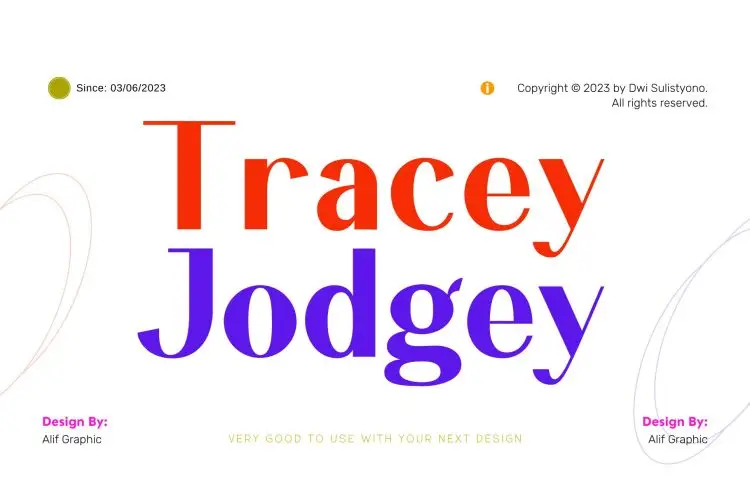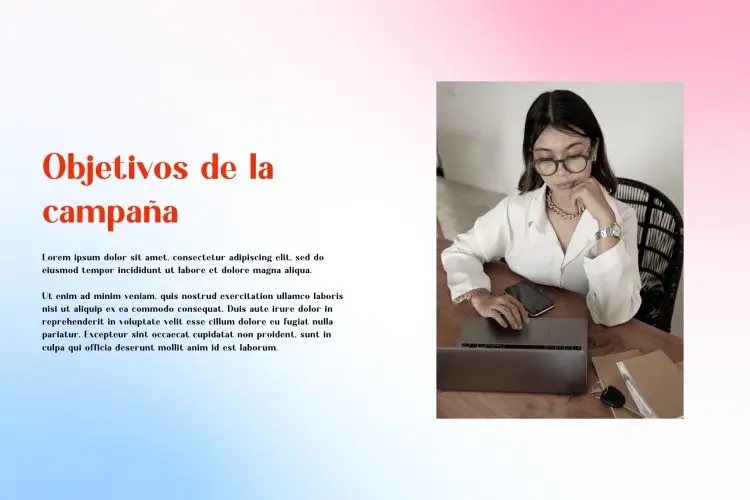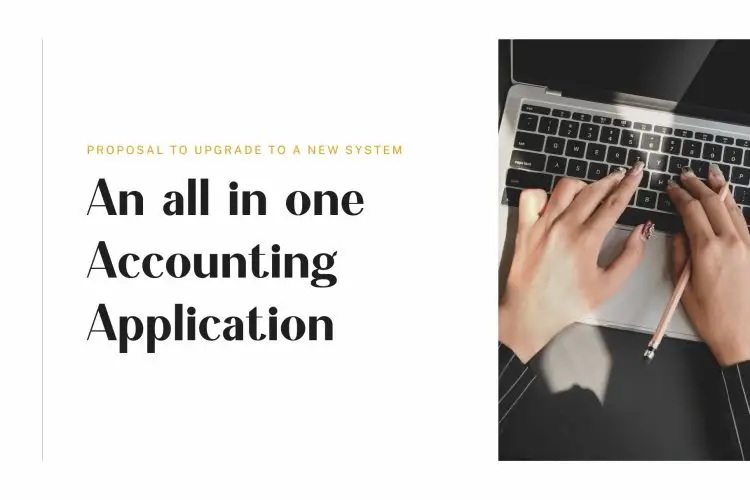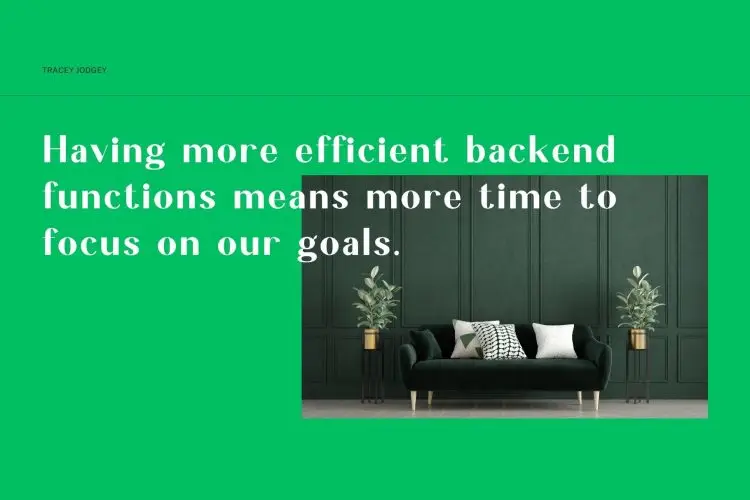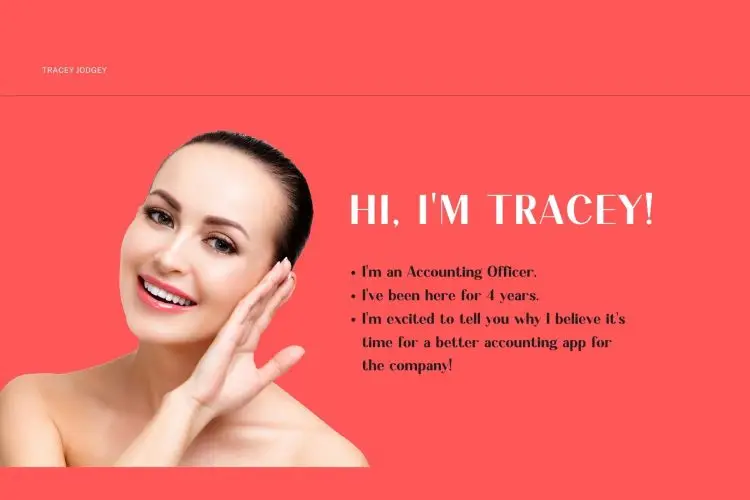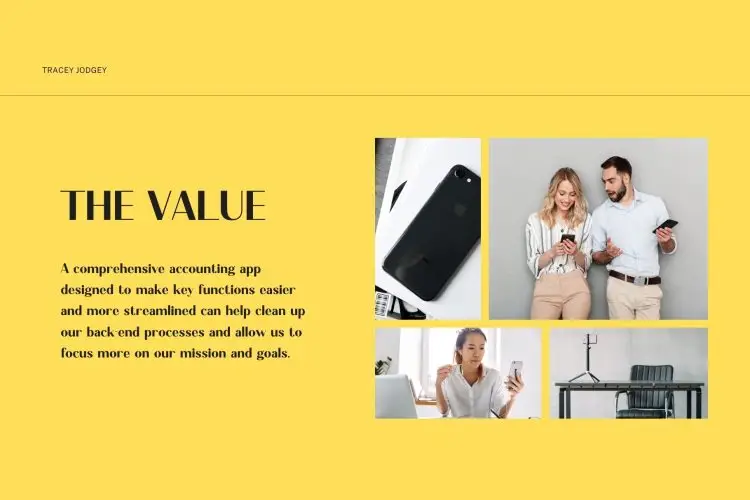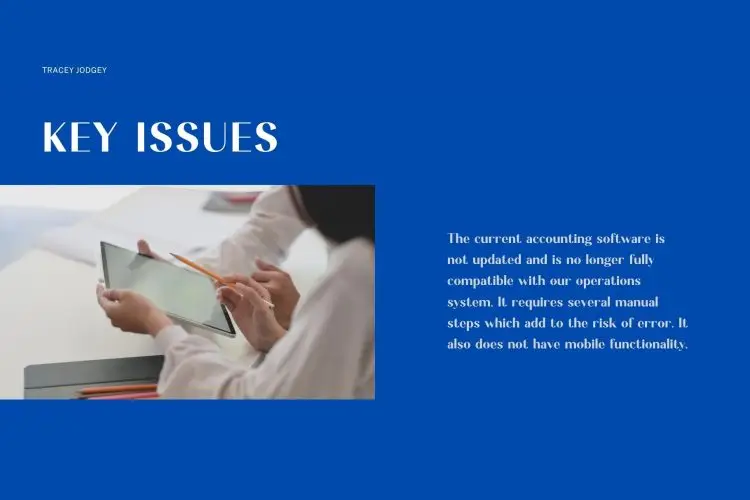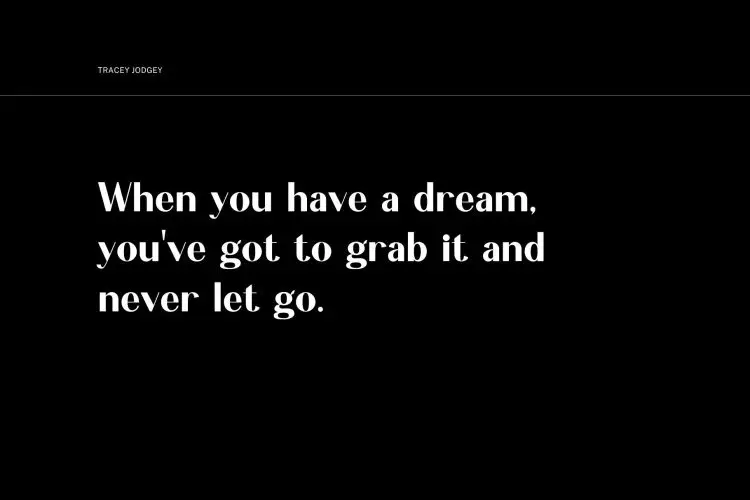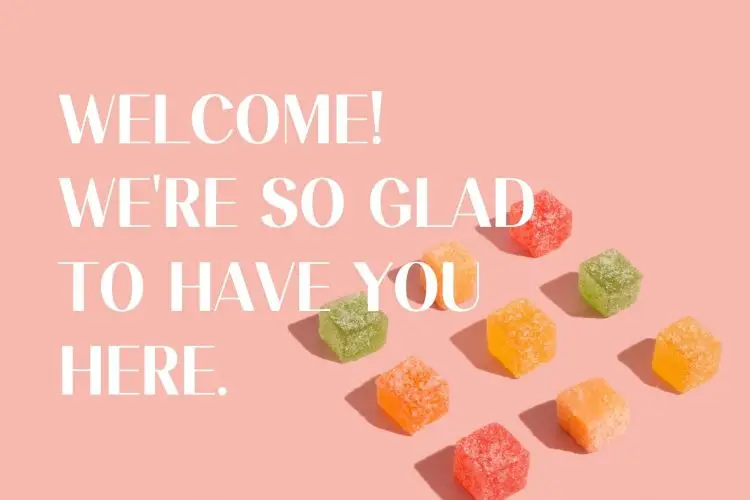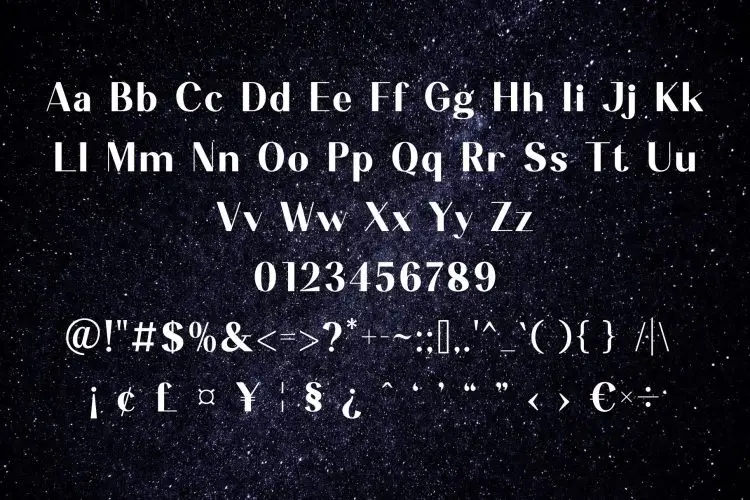
Tracey Jodgey Sans Typeface
Tracey Jodgey
Introducing Tracey Jodgey: A Modern Sans Serif Typeface
Discover Tracey Jodgey, a modern sans serif font designed to bring elegance and clarity to your creative projects. Its beautifully crafted letters combine contemporary appeal with timeless sophistication, making it perfect for social media designs, beauty and fashion branding, and visual identity projects. Each letter is meticulously designed to ensure precision, readability, and a polished, professional finish.
• Ready for Creative Expression
• Immaculately Crafted Letters
Tracey Jodgey is a modern sans serif font that blends elegance with contemporary style. Ideal for beauty, fashion, social media, and creative projects, it elevates your typography with refined sophistication.